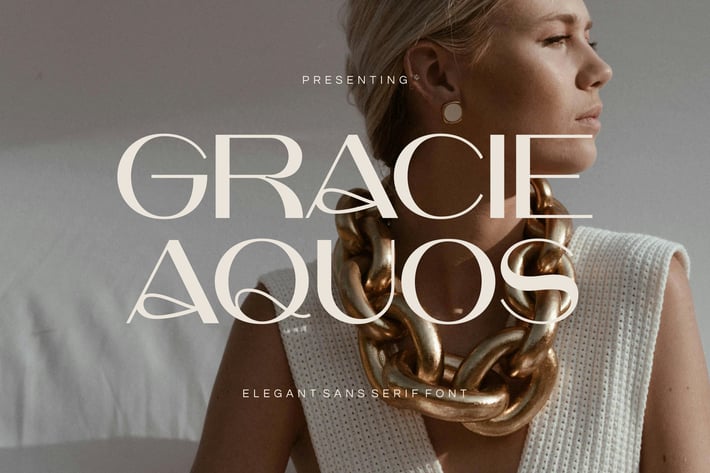
Grace Aquos - Elegant Sans Serif Font
Grace Aquos is a elegant sans-serif typeface with a luxurious and clean.
This font would be particularly well-suited for high-end branding, fashion labels, wedding designs, social media posts, advertisements, product packaging, product designs, label, photography, editorial design where a touch of class and understatement is desired.
Punctuation, Alternates and, Ligatures
Number and Symbol
Opentype Features